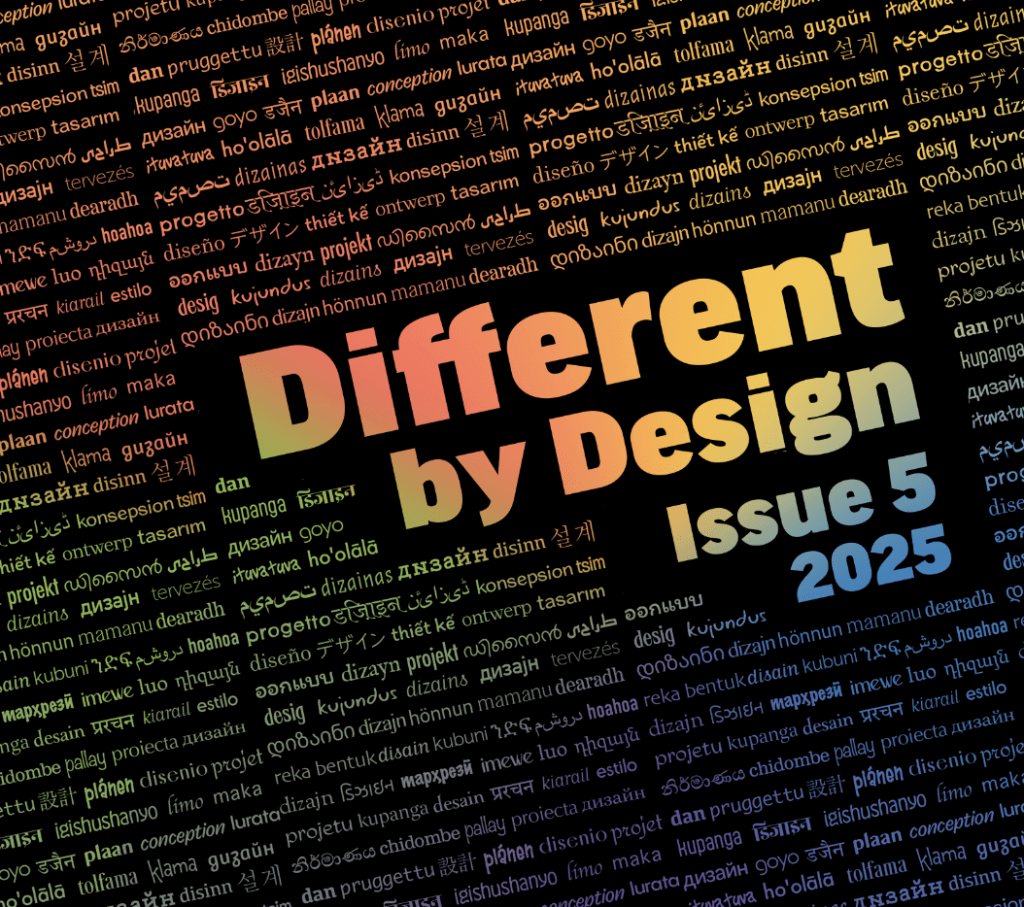
I am, we are…Different by Design: Issue 5
Background
‘I am, we are…different by design’ is a zine created by students in the Department of Typography and Graphic Communication that has been going on yearly since 2017. The aim of the zine is to showcase diverse perspectives in design, film, art, and more. We undergo the processes of interviewing, planning, writing, and designing the zine. This year, Matthew Lui, Riya Vashistha, and Zaynab Farooque were in charge of creating issue 4 of the zine.
Research and Ideation
We wanted the zine to include a wide range of topics. We noticed that the previous zines were very graphic design based, not exactly catering towards the School of Arts and Communication, rather just our department. In order to avoid only targeting our department, we made sure to interview a wide range of people from different creative backgrounds. Although some interviews unfortunately fell through, we were still able to keep our zine diverse in content. Including pieces about user centred design, women in art, film reviews about cultural heritage, and more, we were able to carer towards a wider audience as opposed to just designers.
Figure 1: Our final topic list
Figure 2: Zine spreads layout
Overall design
After conducting our individual interviews and writing them up, it was time to start thinking about the design of the spreads. We agreed that it would be best if each interview/article had their own unique look. This adheres to the idea of being different by design, with the personality and topic of the interviewee’s work being shown through design. However, there were certain aspects that were kept cohesive throughout the zine, such as using the same sans serif, baseline grid, and captioning system. This allowed a sense of cohesion and unity to be present throughout, without every spread looking too similar. Making each article look different allowed us to express the subject matter through design. This can be seen through Riya’s use of vibrant colours and patterns for ‘Celebrating South Asian Identity in Design’ and Zaynab’s use of chrome blackletter type in ‘Female Cyborg Renaissance’.
Grids
Matthew created the grid for the zine. The fact that all our spreads were very visually different from each other meant that they had to be brought together by the grid system. The zine itself was A5 with 12 columns. The top margin was set to 1.3cm, the inside set to 1.6cm, the outside set to 1.2cm, and the bottom set to 2.4cm. The larger bottom margin allowed a comfortable amount of space for the page numbers along with enough thumb space for the reader to hold without covering any text.
Riya
Unpacking South Asian Identity: Interview with Esha Rajesh
Asia is not only the world’s largest continent, but also one of the most diverse with thriving cultures. As a designer from South Asia, I was particularly interested in covering the South Asian region. South Asia predominantly consists of countries such as Bhutan, Bangladesh, India, Pakistan, and Sri Lanka, with Afghanistan and Maldives often included in the region. South Asian communities have been rather underrepresented, but we are slowly seeing an emergence in recognition in the Western world.
Desigal was a magazine design project produced by a graduate student, Esha, from the Department of Typography and Graphic Communication. The independent magazine focuses on providing a flavour of fashion, beauty and entertainment, whilst celebrating diversity and inclusion amongst South Asians.  One of my primary goal was to include bright colours and patterns into the design of the interview. South Asia has a rich history of vibrant coloured dyes being used as early as 4000 BCE, made from plants such as turmeric. I was interested portraying an aspect of it.
Figure 3: Desigal spreads and colour scheme
In regards with adding patterns to my design, I focused on using dots, which are an important base element that can be found in various Indian tribal art, mandalas, rangoli (an art form that focuses on creating patterns with vibrant coloured powders and sands), textiles, bindis (dotted mark/stickers placed on the forehead) and more. I also experimented with other various floral inspired backgrounds at the initial development stage, but decided to not go with them further since it didn’t feel particularly focused.
Figure 4: Indian textiles, rangoli, and bindi
Figure 5: Pattern experiments
Unpacking LGBTQIA+ representation: Interview with Apinaya Ganeshalingam
The queer community has always played a vital role in the development of arts and design by encouraging diverse representation, social activism, challenging notions and more.
The Queer Agenda is an independent newspaper design produced by a graduate student, Apinaya, from the Department of Typography and Graphic Communication. The newspaper focuses on celebrating the art and queer community, alongside providing challenging perspectives and engaging articles.
In regards with design of the interview, I wanted to base it on newspaper design with various columns, paired with hints of pride theming throughout to compliment the subtle and authentic representation design approach Apinaya took with her newspaper. Hints of pastel-like pride colours can be seen in the title of the article, alongside with pull-out quotes alternating with individual pride colours.
Figure 6:  Pull quotes and colour scheme for ‘The LGBQIA+ Times’ spread
Zaynab
Female Cyborg Renaissance: Interview with Kira Read
Whilst looking through the art degree show’s website Mixtape I came across Kira Read’s work. She explores the idea of overly sexualised robotic women, and places them in a feminist dystopia renaissance. This was a unique concept I had not seen before, and the way she mixes the past and her idea of the future together really intrigued me.
Figure 18: Final spread for Female Cyborg Renaissance
Reflection
Working as a team and delegating tasks proved to be helpful, as we did not have to figure out who would be amending the zine according to feedback, as Matthew was in charge of this from the start. Being able to explore topics that were in our own interests was enjoyable and encouraged us to make design decisions that were relevant to the topic. For example, Zaynab chose the colours of the Angolan flag and drew a Samakaka pattern for the background. Making thematic decisions made each decision feel carefully thought about, which was appreciated by our interviewees. One thing we could have done better was creating deadlines each month, which could have sped up the process.